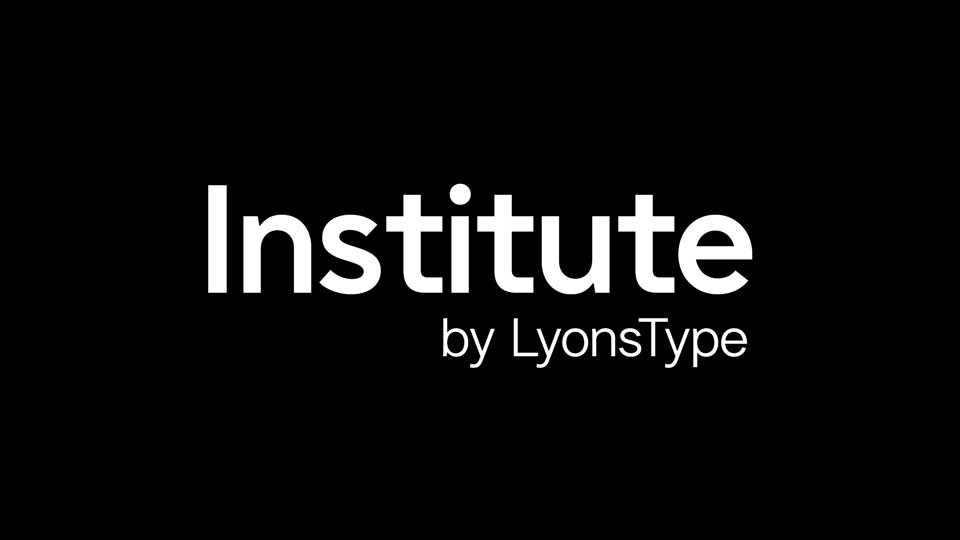
Download LT Institute font, a modern and geometric typeface that embodies the essence of contemporary design. With clean lines, precise shapes, and a minimalist aesthetic, the font brings a touch of sophistication to your projects.
Designer: LyonsType